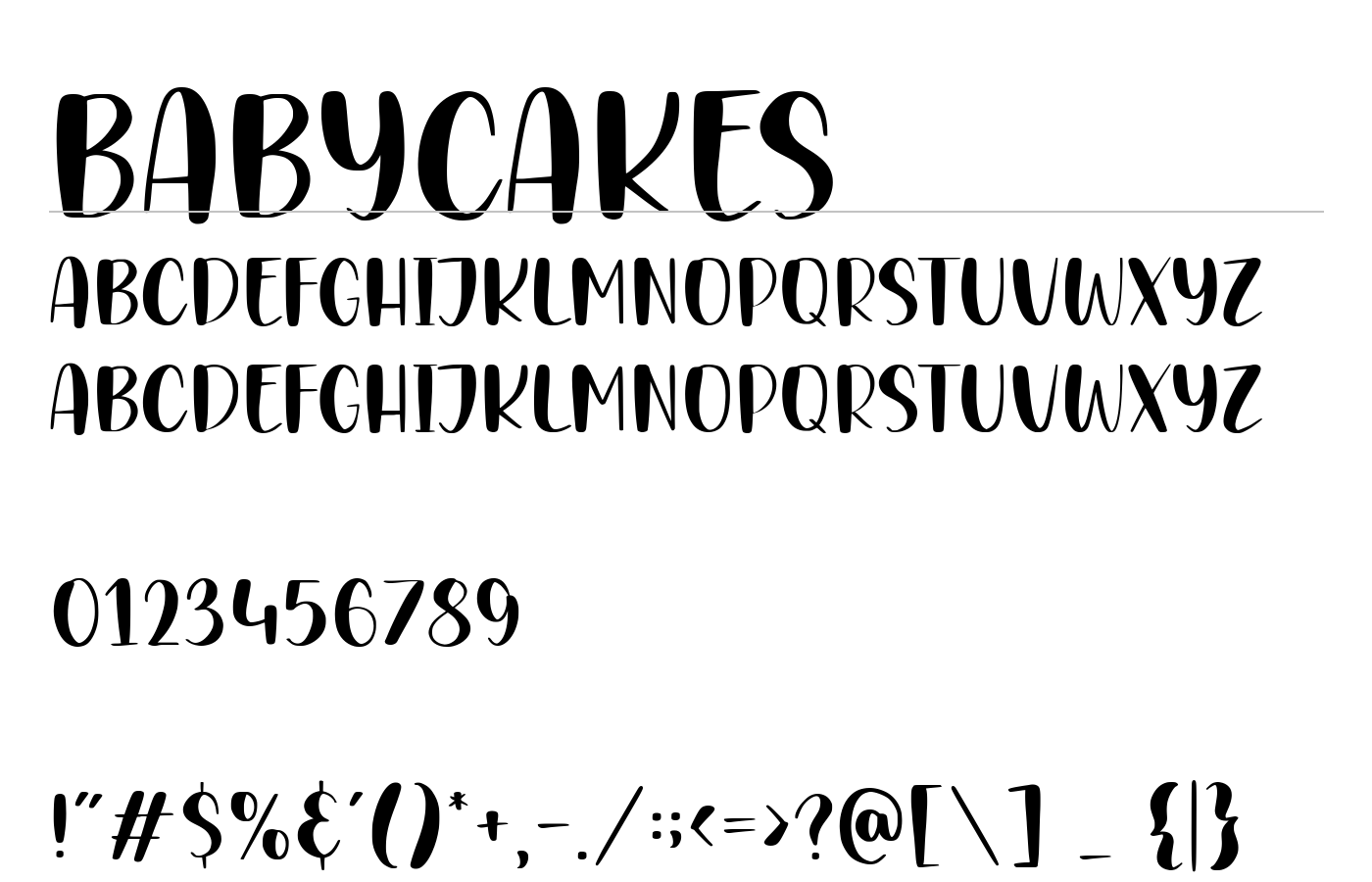
BABYCAKES is a playful, hand-lettered sans serif font with a lively, casual feel. Its varying stroke widths, tall x-height, and quirky letter shapes create a friendly and approachable style ideal for fun branding, children’s products, and informal headlines. This font works well where a personal and whimsical touch is needed to engage viewers with charm and personality.
BABYCAKES Font
About BABYCAKES Font